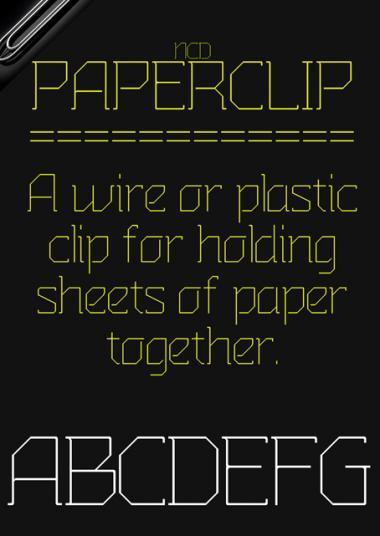
Slight variation on the superb Paperclip
Nice work. Did you rebuild this without cloning?
Yes Cloned from Paperclip
Redrew, amended and tweaked the following.
A,B,C,D,G,J,K,L(shortened),M,N,O,P,Q,R,S,U,V,W,X,Y,Z
a,b,c,d,e,f,g,h(widened),i(dot) j(dot),k,l,m,n,o,p,q,r,s,t,u,v,w,x,z
0,2,3,4,0,2,3,4,5,6,7,8,9
",',@,$,@,%,&,£(new), + the glyphs
All European Set
Beautiful. I particularly like the little tucked terminals. And the ampersand you picked is definitely the one.
Completely updated, using NEW bricks and New Spacing. Also added FULL European set.
cool.
making good things BETTER is hard :)